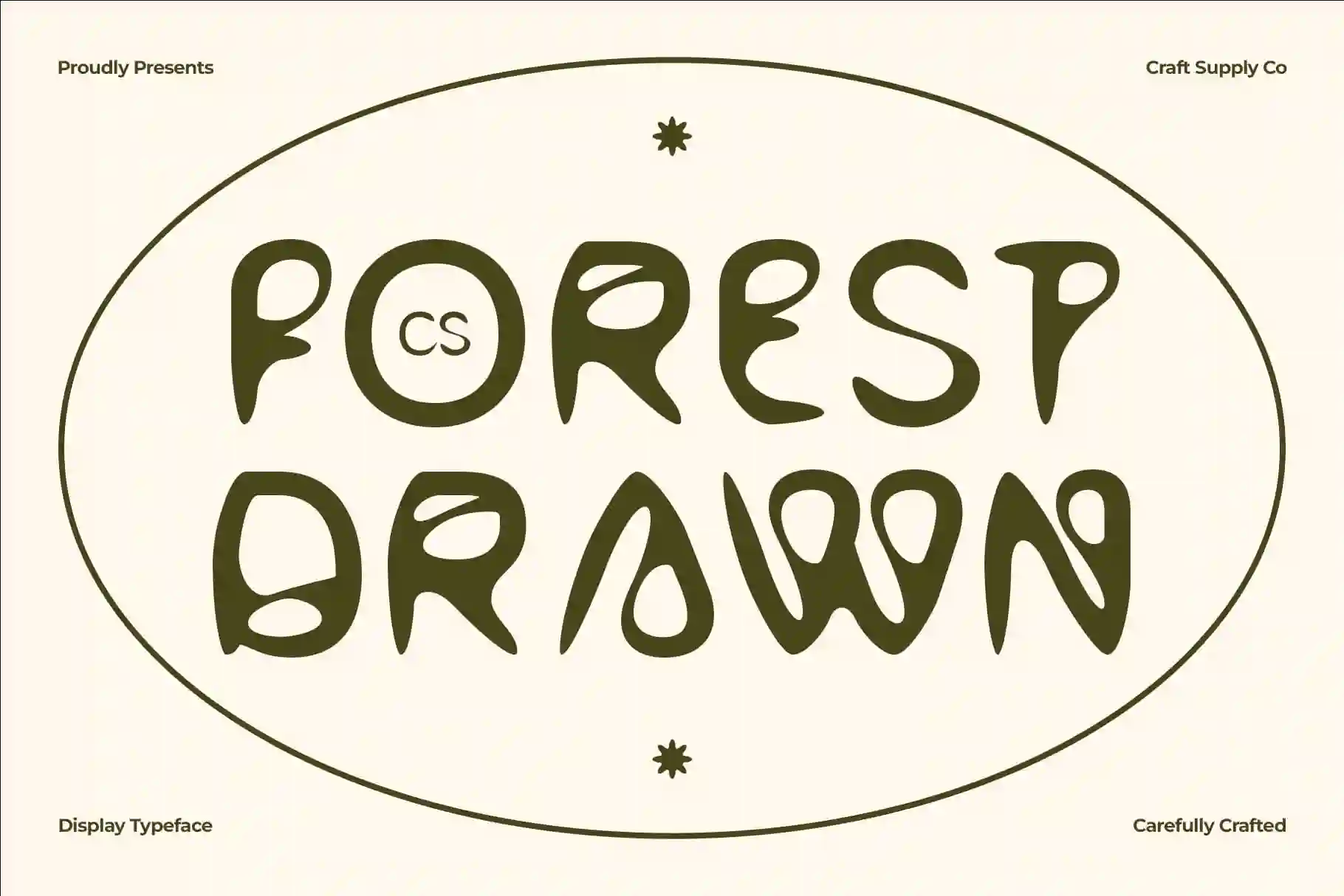
CS Forest Drawn – Art Nouveau-Inspired Sans Serif with Handcrafted Elegance
Graceful Forms with a Modern Touch
This is a modern sans-serif display font that channels the elegance of Art Nouveau curves through clean, flowing shapes. Its design speaks of feminine beauty, soft strength, and organic rhythm, making it both visually charming and stylistically refined.
Delicate Details with a Handcrafted Feel
What sets this feminine font apart is its subtle drawn effect, which adds a personal, handmade quality to its clean outlines, enhancing its charm and artistic appeal. The result is a typeface that feels both structured and soulful, ideal for projects that blend professional appeal with a human touch.